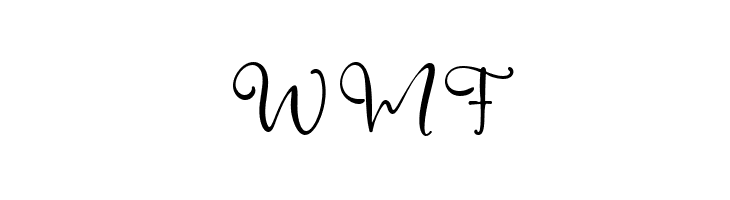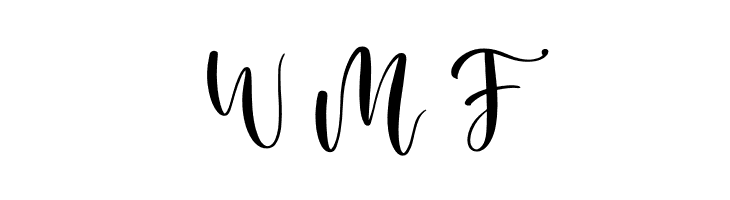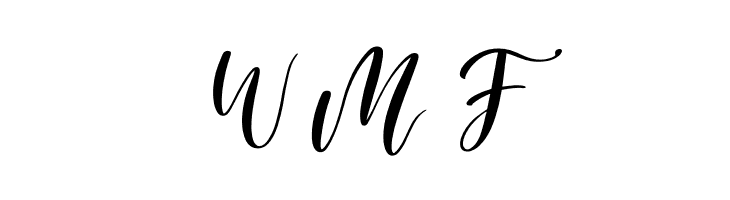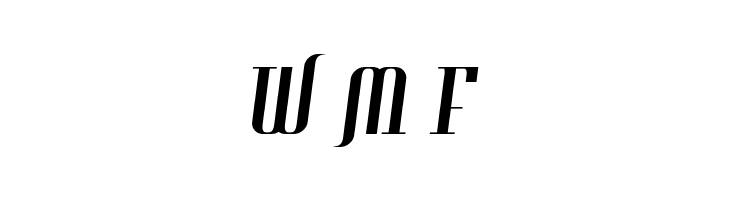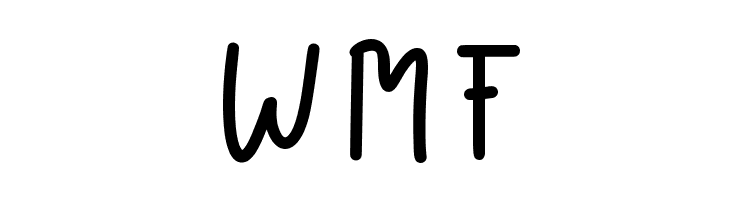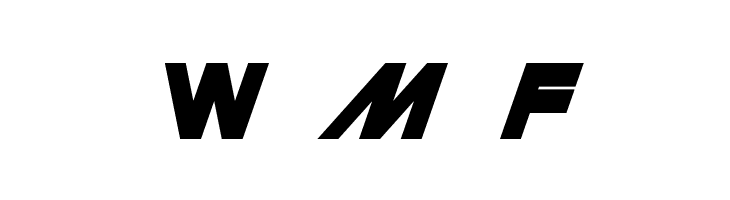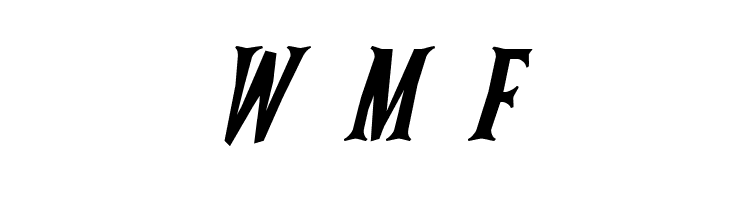
A bold, jagged font with a spooky, haunted theme.
A bold, italic font with high contrast and dynamic, energetic style.
A playful, handwritten font with a casual and friendly appearance.
An elegant script font with flowing, interconnected letters and decorative flourishes.
Elegant cursive font with interconnected characters and stylish flourishes.
A bold, oblique font with a futuristic and dynamic style.
A modern, elegant script font with a flowing, handwritten style.
A dynamic, flowing script font with elegant cursive letterforms.
A modern, high-contrast serif font with tall, narrow letterforms and elegant serifs.
A graceful, cursive script font with a smooth, handwritten style.